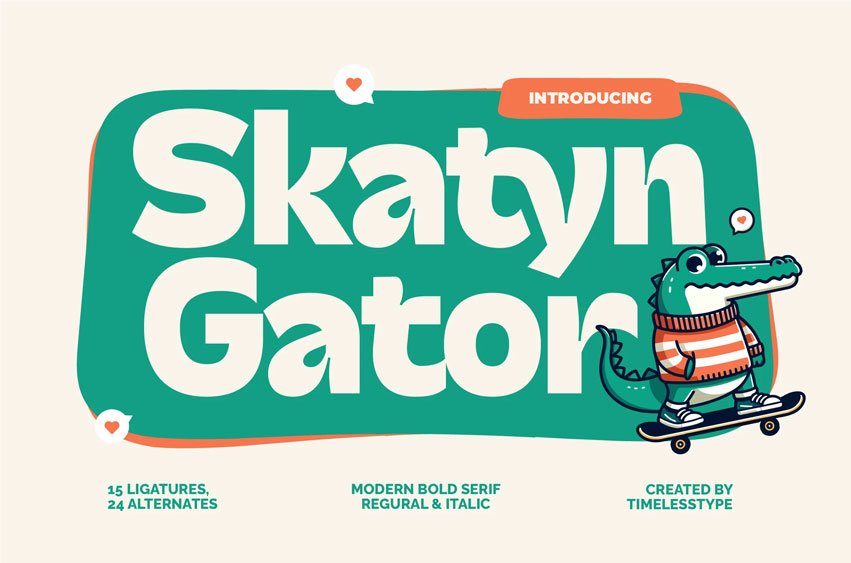
Skatyn Gator Font is a modern bold serif display font with playful character and dynamic energy, inspired by retro cartoon and skate culture aesthetics. Featuring 15 ligatures and 24 alternates, this typeface is perfect for posters, packaging, branding, social media, and editorial layouts.
With its bold charm and fun personality, Skatyn Gator brings creativity and youthful spirit to both digital and print designs.